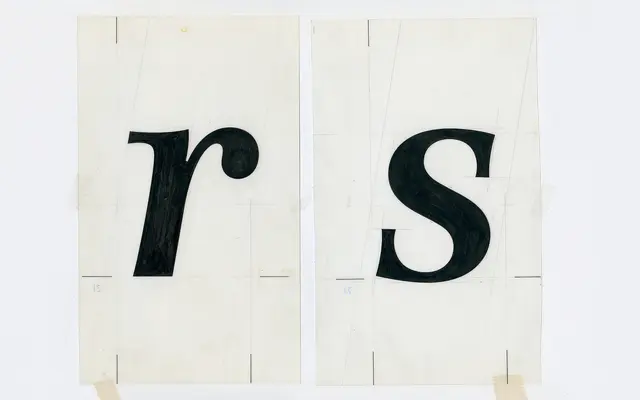
Media77
Optimo · Team'77 (André Gürtler, Christian Mengelt, Erich Gschwind)
Media77 specimen from Optimo
A revival of Team'77's 1974 phototypesetting text serif, redrawn by Christian Mengelt and Erich Gschwind for contemporary use.
A text serif by Team'77, originally drawn in 1974 for Bobst Graphic in Lausanne, specifically for phototypesetting technology. Where competing designers fought the technical limits of photo composition, Team'77 used them as a starting point for a typeface free of historical classification. Decades later, Christian Mengelt and Erich Gschwind redrew Media for digital use, keeping its sophistication and easy legibility at small sizes while preserving the refined details that read at display. Four weights with italics and a Condensed cut.
Optimo describes Media77 as a digital revival of Media, a text typeface created by Team'77 in 1974 specifically for phototypesetting technology, redrawn by original members Christian Mengelt and Erich Gschwind.
Media77 Condensed